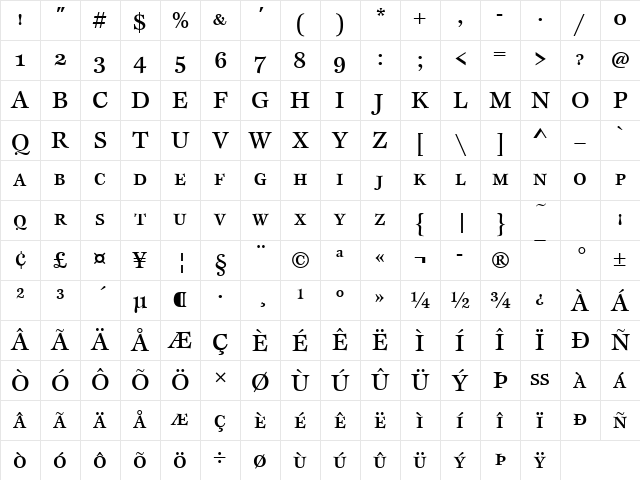
EspritSCItcTMed Regular
Design Context for EspritSCItcTMed
EspritSCItcTMed is a composed and adaptable typeface that performs quietly and consistently across a wide range of design contexts.
Pro Tip: Use EspritSCItcTMed in both headline and body roles to test its range before committing to a single application.